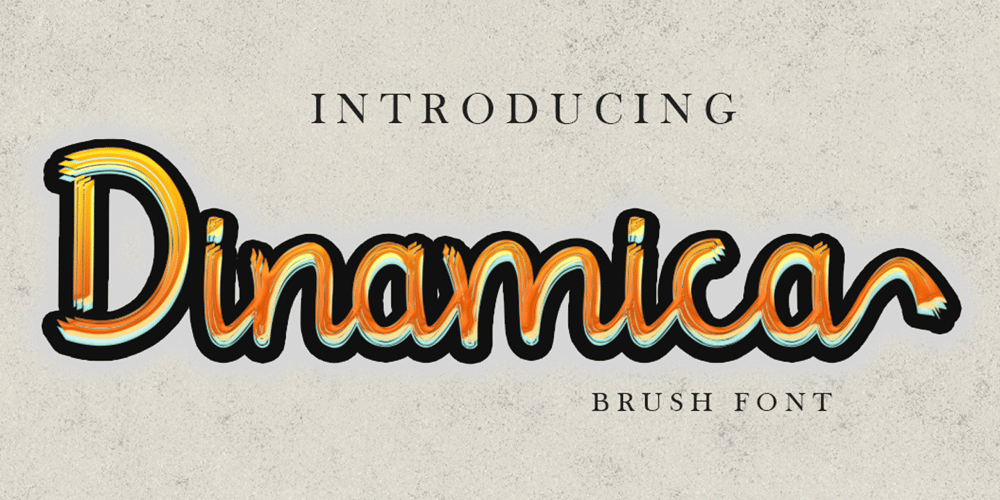
Dinamica Font Family was designed by Reza Mukhtazar and published by Rezastudio. Dinamica contains 1 styles and family package options. Dinamica is consisting of a stylish layered font.This font was created with contextual alternates opentype features to create slice effect.Denamica is perfect for branding projects, logo, social media posts, advertisements, product packaging, product designs, label, stationery and anything that you want.Here is that you get:Works on PC & Mac.Simple installationsSupports multilingualAccessible in the Adobe Illustrator, Adobe Photoshop, Adobe InDesign, even work on Microsoft Word.PUA Encoded Characters – Fully accessible without additional design software.Drop me message if you have any questions.Happy CreatingThanks